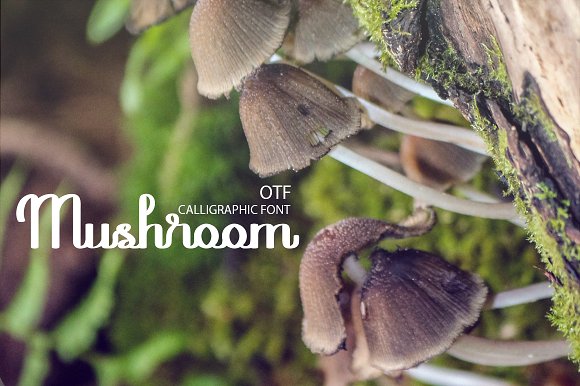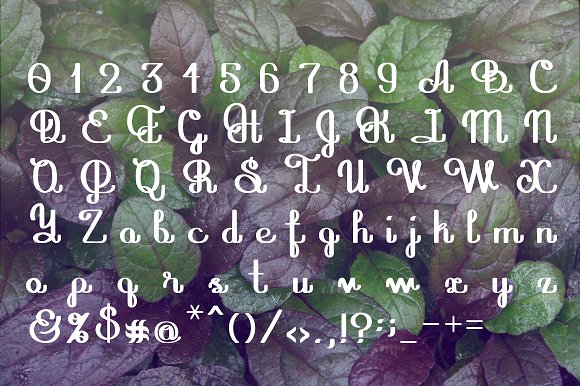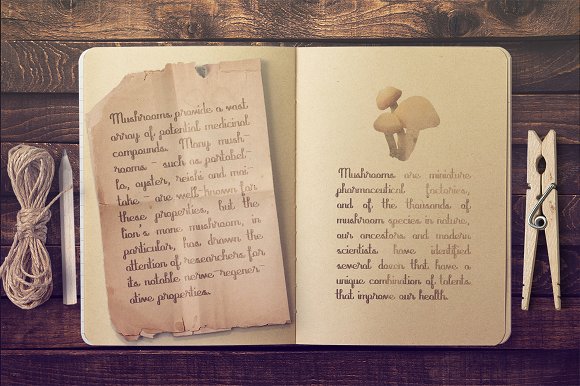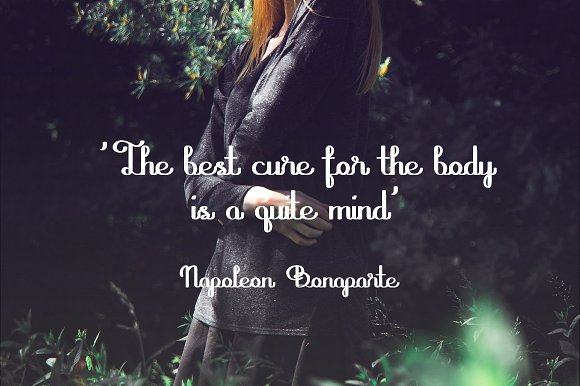
Mushroom font
Meet new pretty calligraphic font MUSHROOM!
It comes with upper and lowercase Characters, Numbers, Marks and Punctuation (OTF).
Perfect for decorating web sites, prints, placards, labels, flyers, greeting cards, posters, product packaging or… any your idea))